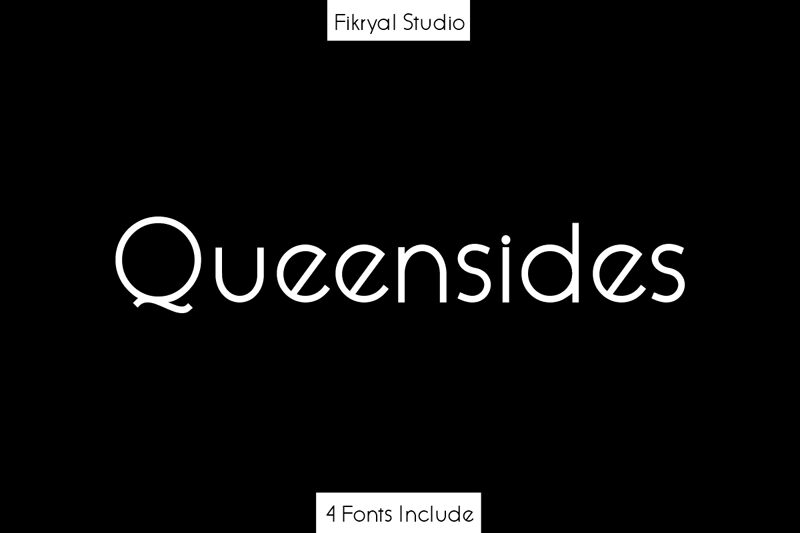
Queensides Bold
Queensides is a captivating sans-serif font designed by Fikryal studio. Blending bold strokes with sleek, contemporary lines, this font exudes a striking visual presence. The strong, geometric forms convey a sense of modern sophistication, while the subtle curves lend a touch of warmth and approachability. Queensides' distinctive character makes it a versatile choice for a wide range of design applications.
This font's versatility shines through, making it a compelling option for branding, editorial layouts, and even packaging design. Its bold, attention-grabbing personality lends itself well to headlines and display text, while the clean, legible letterforms ensure excellent readability in longer passages of body copy. Queensides' seamless integration of both striking and refined elements allows it to seamlessly transition between various design contexts, from cutting-edge corporate identities to dynamic digital interfaces.